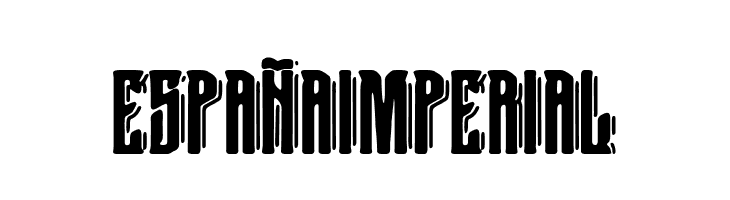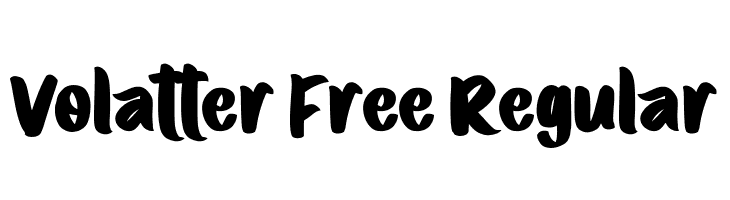
A bold, geometric font with a futuristic, condensed style.
A bold, angular font with a futuristic, geometric style.
A dynamic and expressive handwritten font with fluid, cursive letterforms.
A playful, handwritten font with irregular strokes and a casual style.
An elegant and fluid script font with graceful curves and flowing lines.
A bold, italicized font with high contrast and modern elegance.
A bold, textured font with a hand-drawn, sketch-like appearance.
A bold, rounded font with a playful and whimsical style.
A bold, geometric font with sharp angles and a modern look.